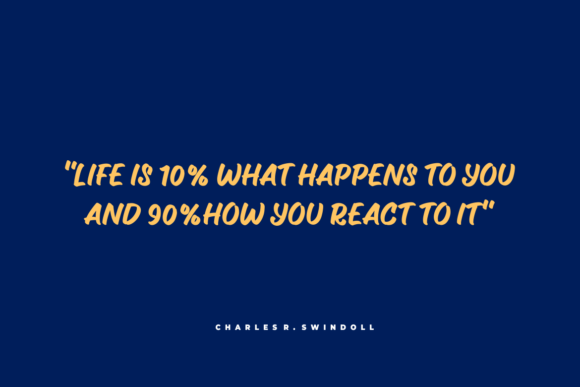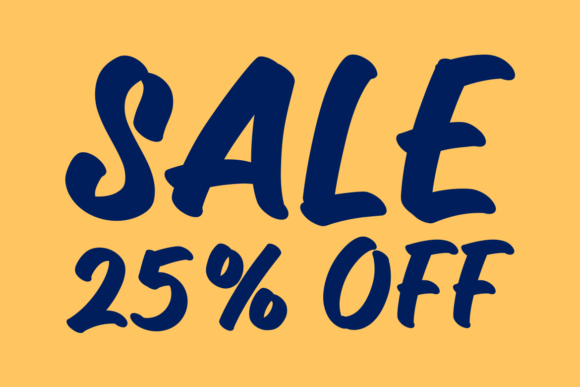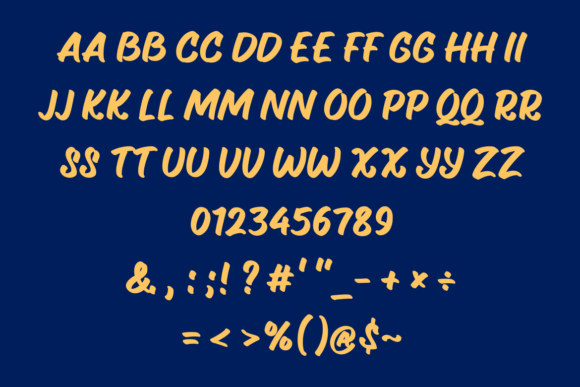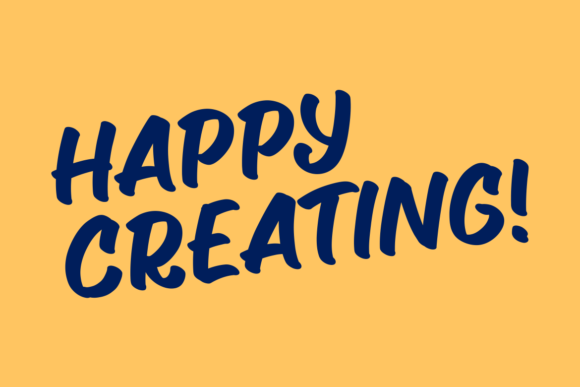
Introduction to Haughs Font
Haughs is a casual sign painting font.
Its casual charm makes it appear wonderfully down-to-earth, readable, and ultimately incredibly versatile Haughs will look outstanding in any context, whether itโs being used on busy backgrounds or as a standalone headline.
Key Features of Haughs Font